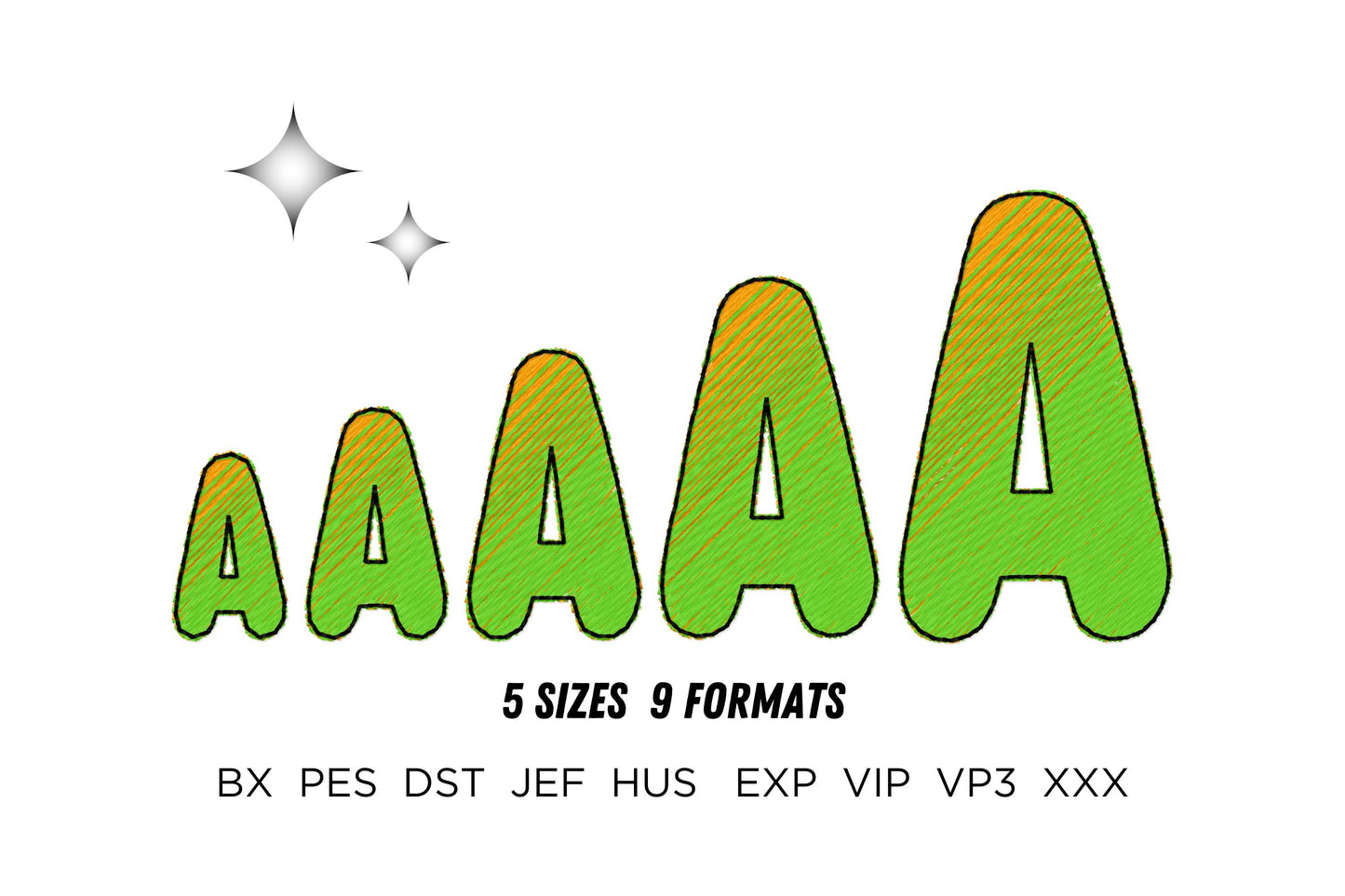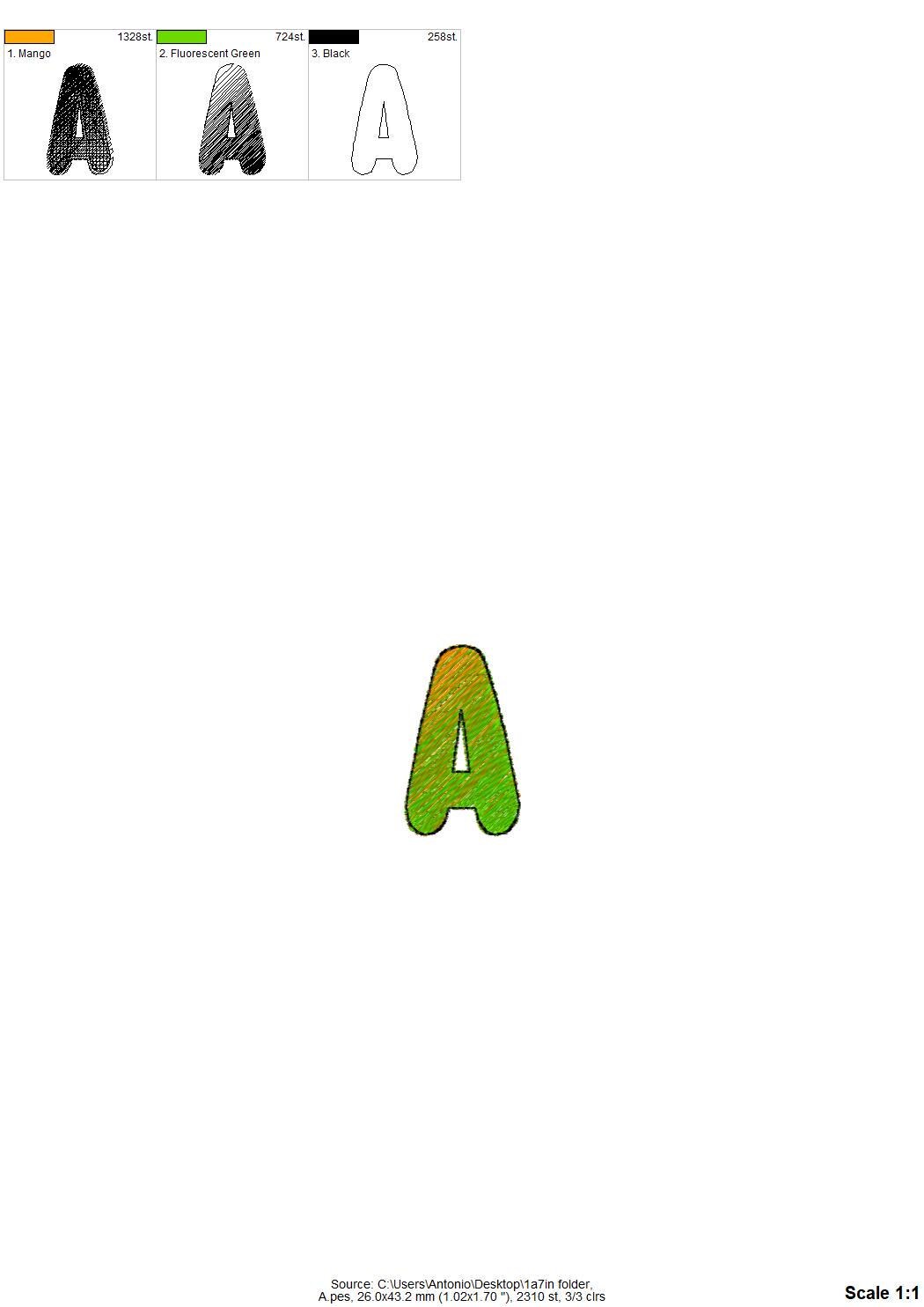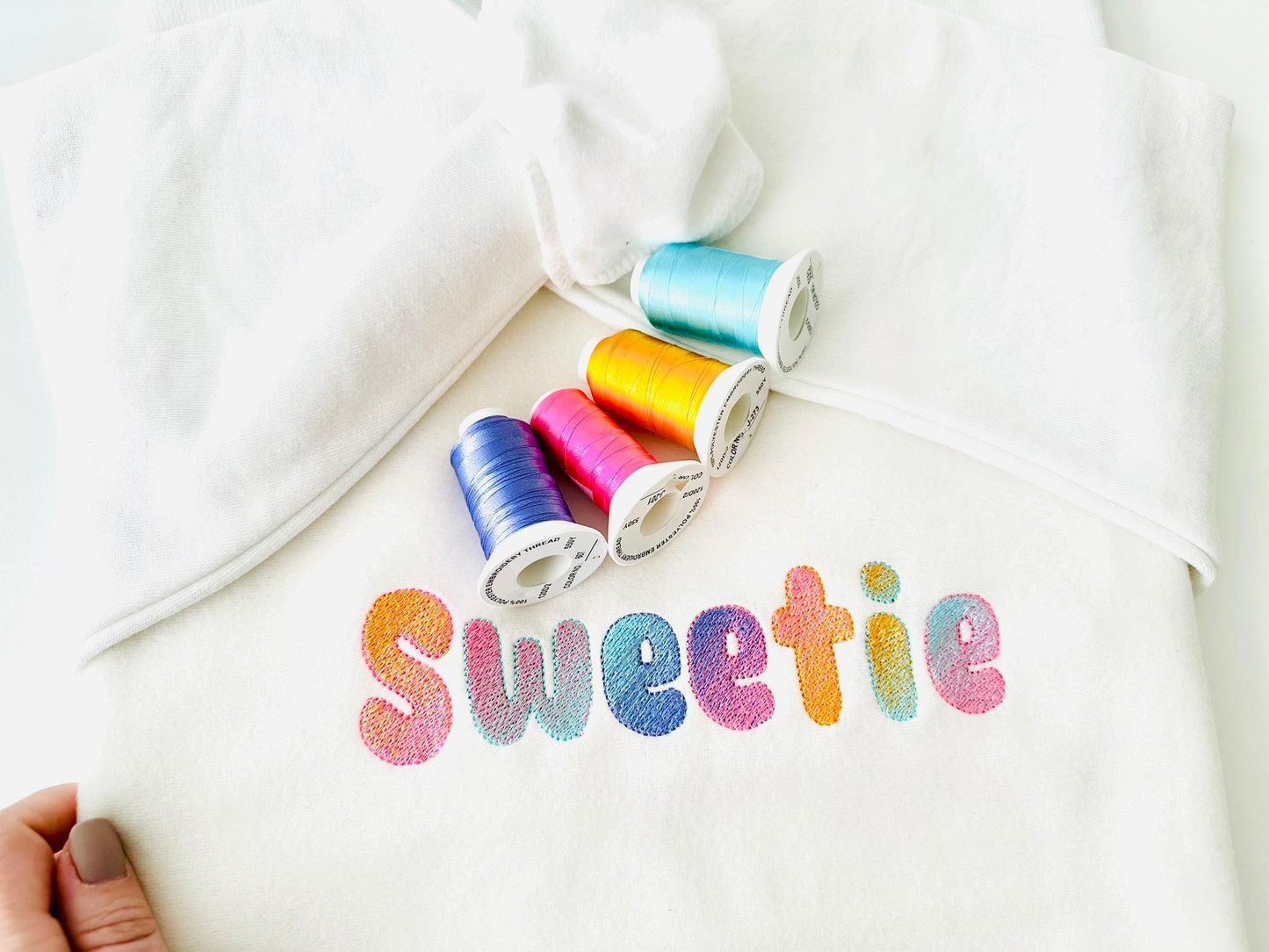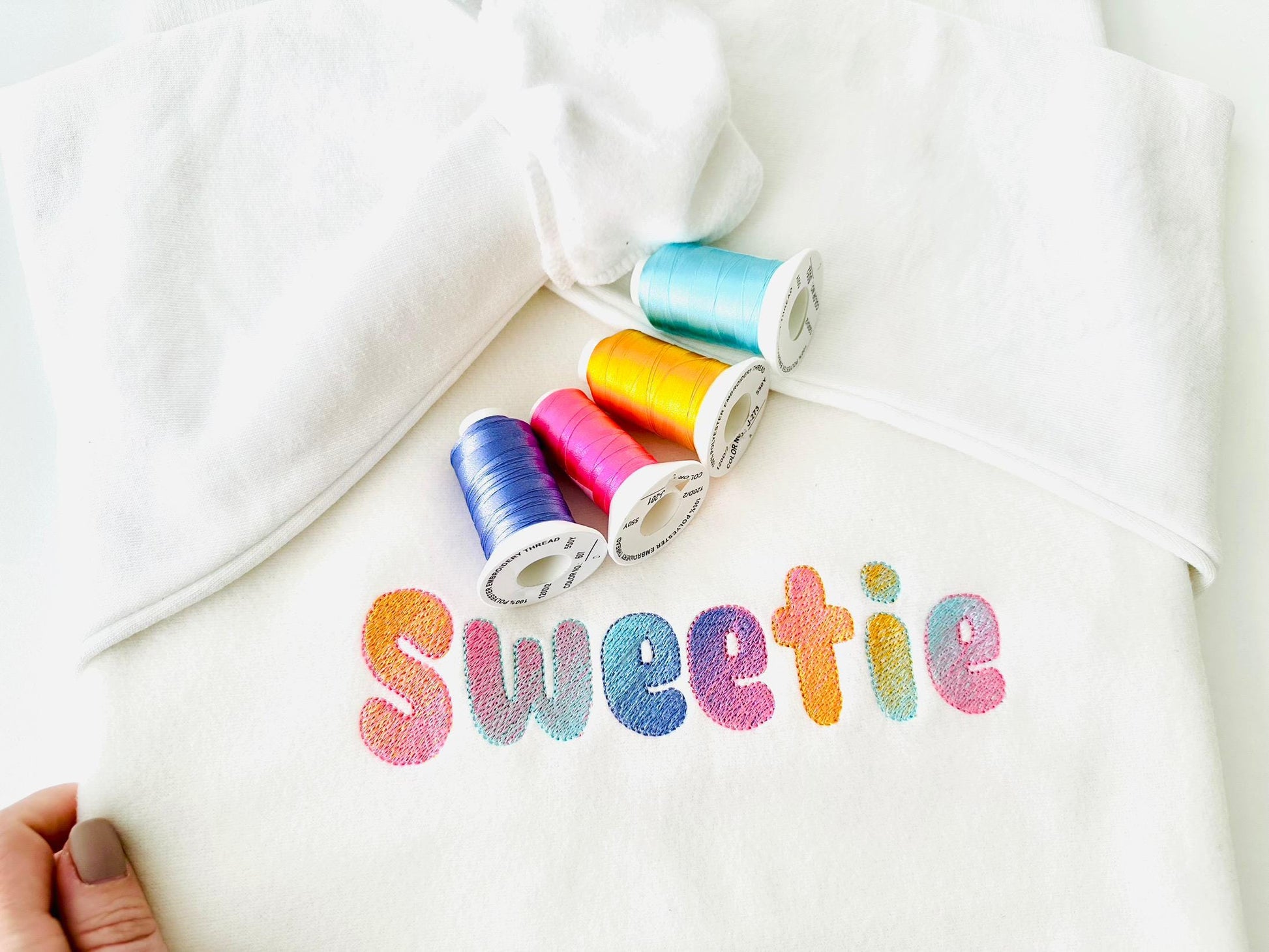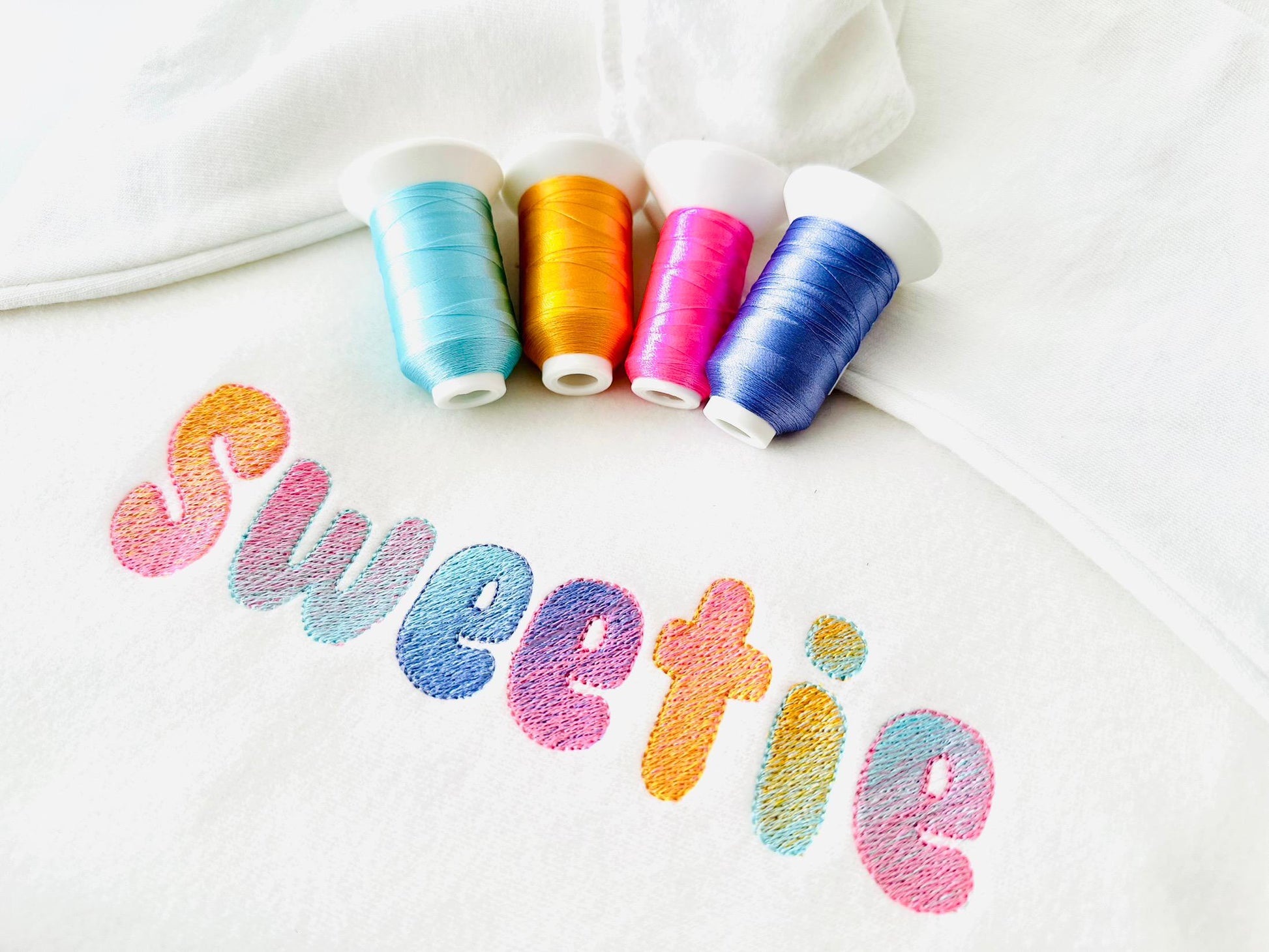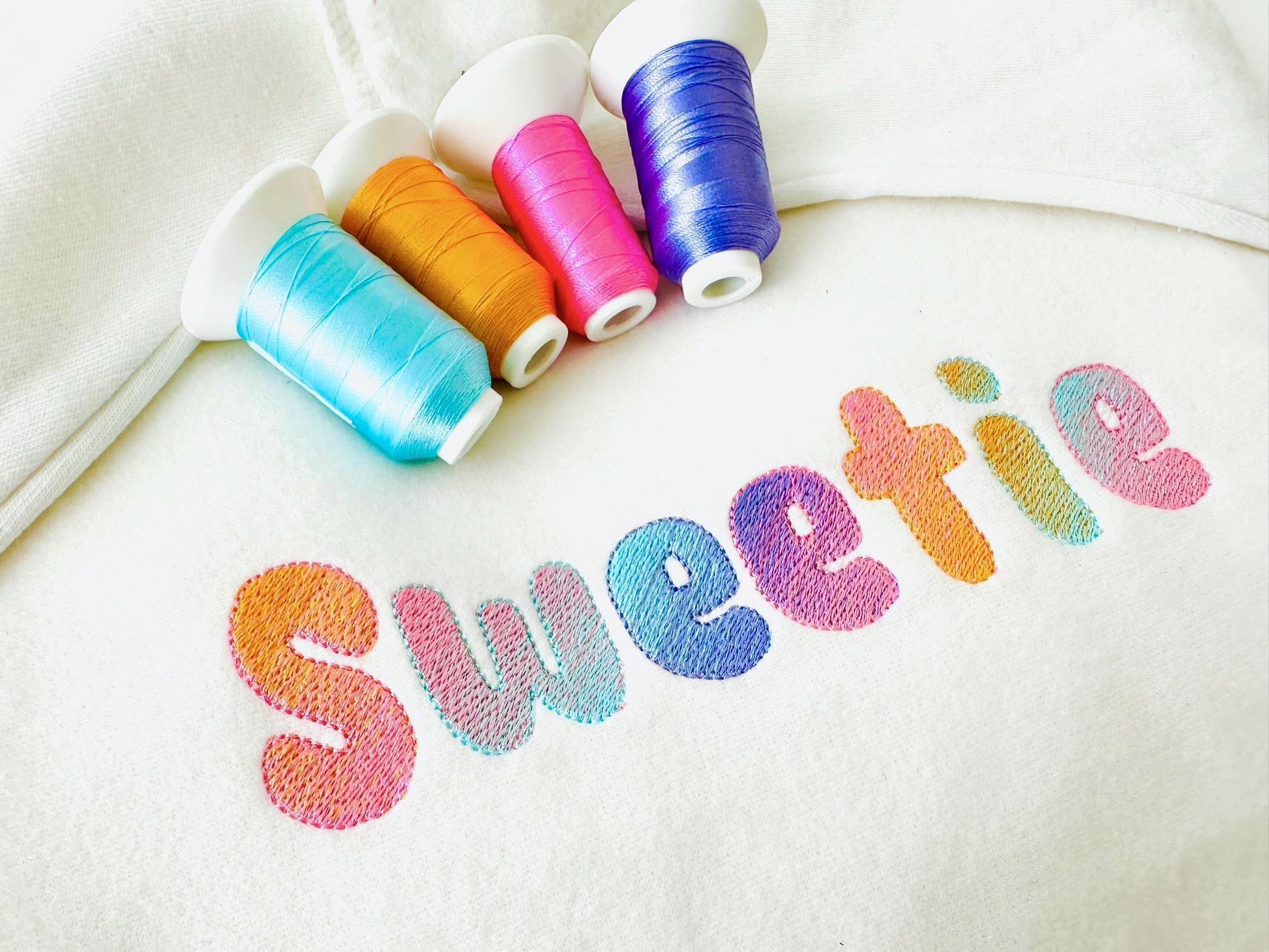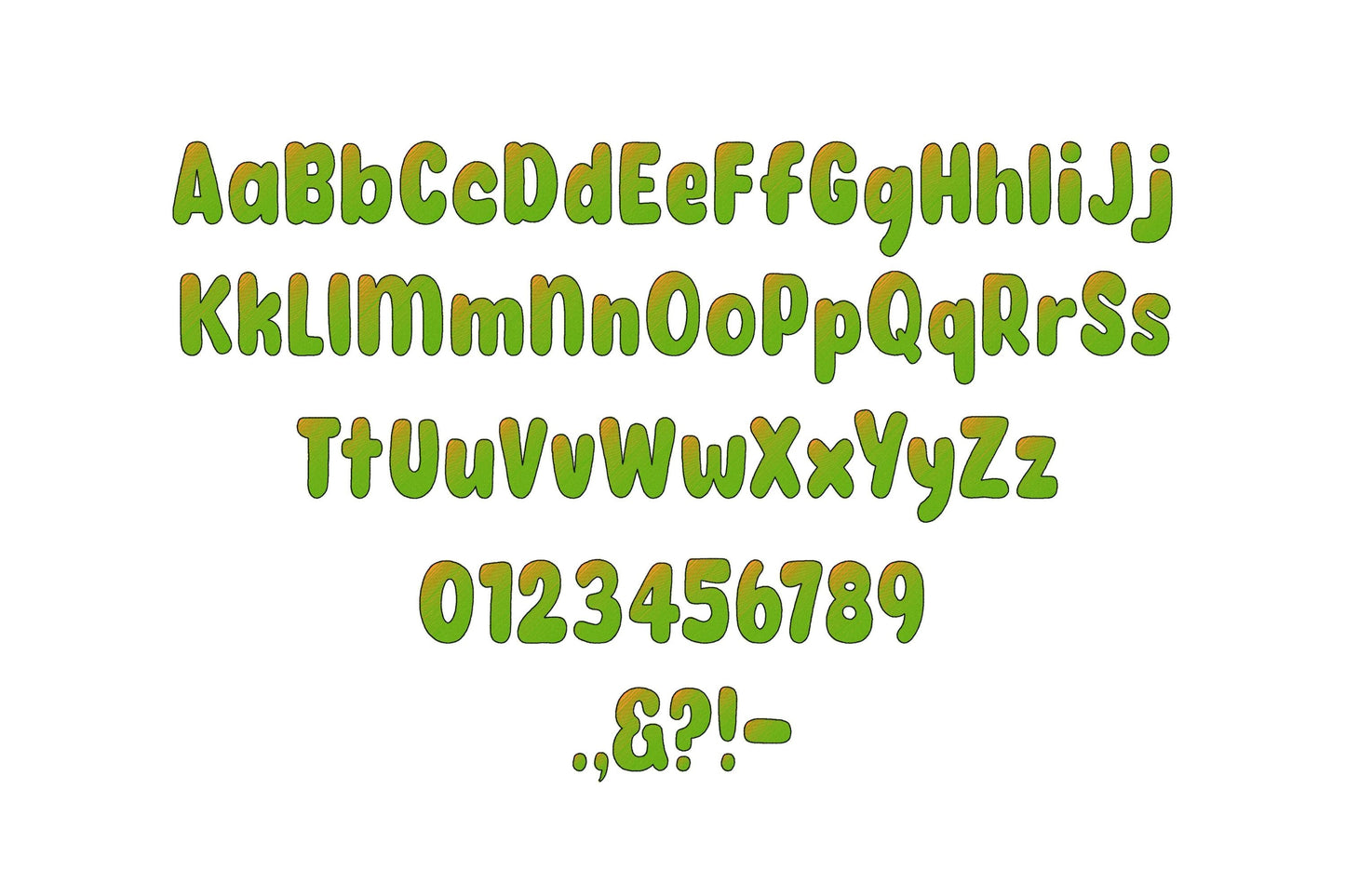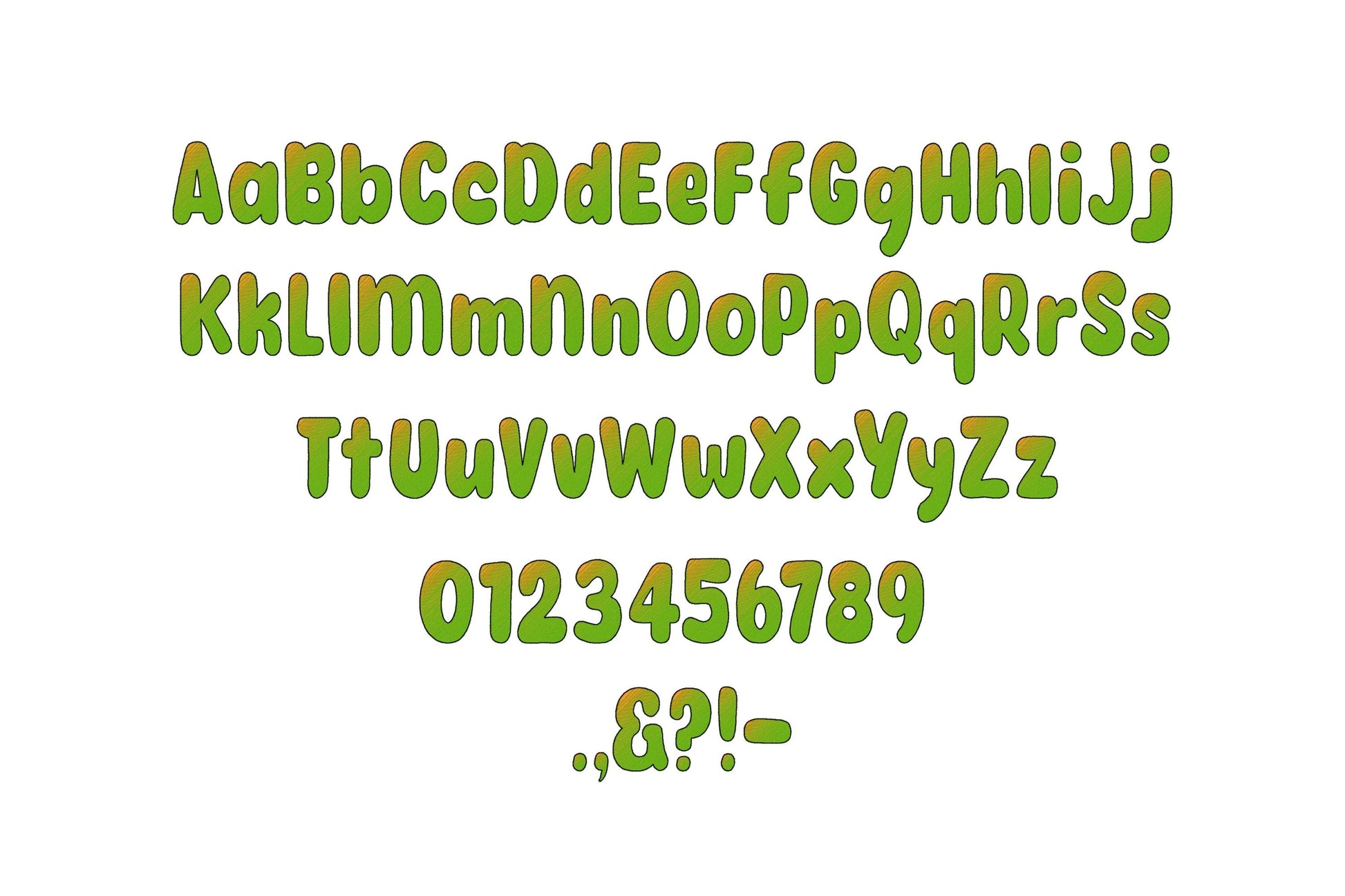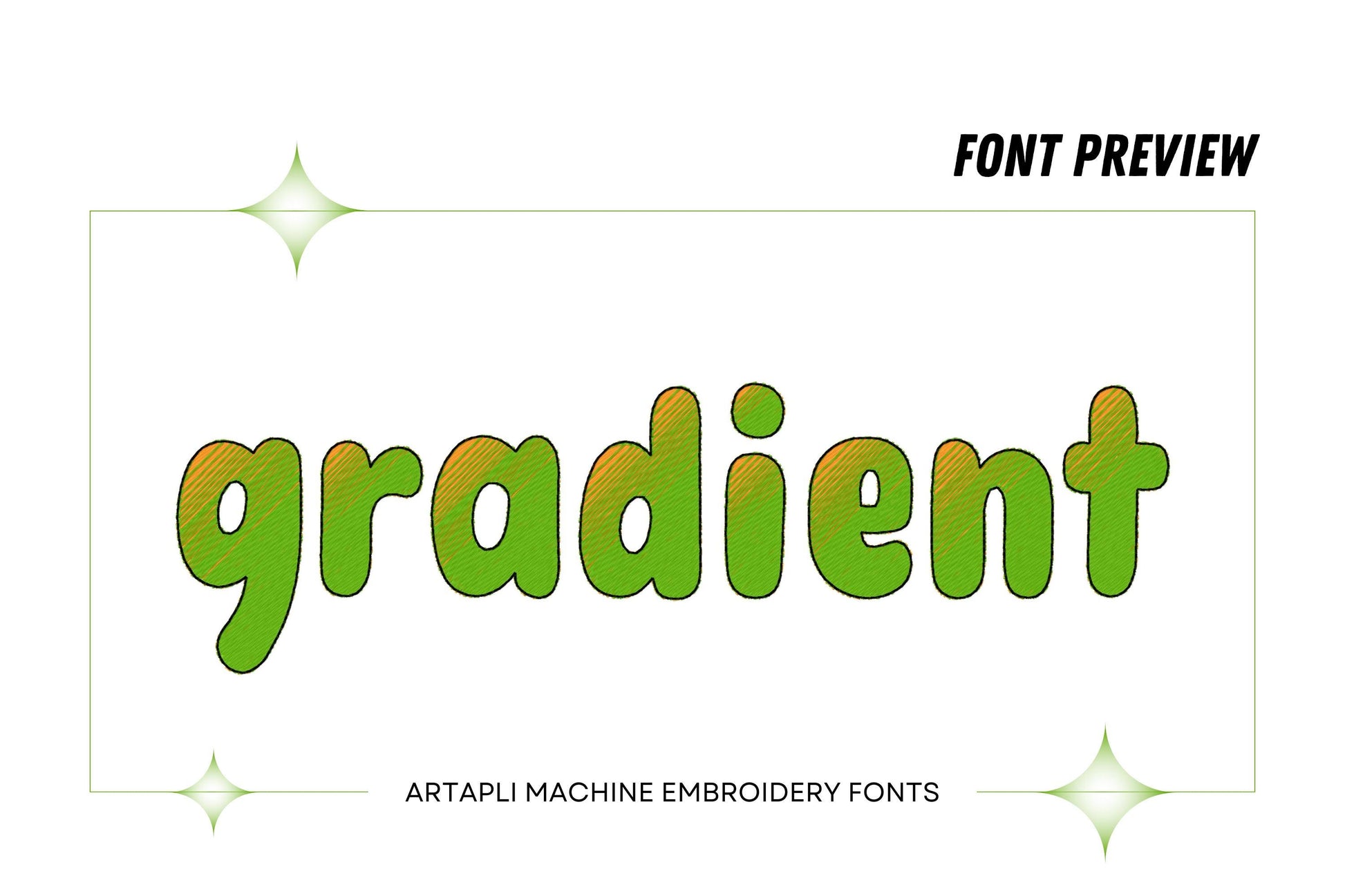
Or click to open the linkA small monogram font that looks iridescent, stitched with two ordinary thread colors and an outline. No special thread needed. Sweet for names and monograms.
Uppercase and lowercase letters, numbers 0 to 9 and punctuation. Five sizes: 0.8, 1.2, 1.4, 1.7 and 2.2 inches. One side of each letter is one color, the other side a second color, finished with a clean outline.